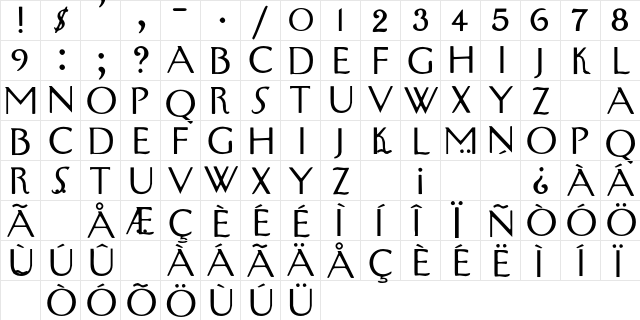
Manhattan Regular
Design Context for Manhattan Typeface
Manhattan takes a measured approach to typography — its balanced proportions and neutral character make it a reliable workhorse for both digital and print work.
Pro Tip: Pair Manhattan with a font of contrasting weight or personality to build a more expressive typographic hierarchy.